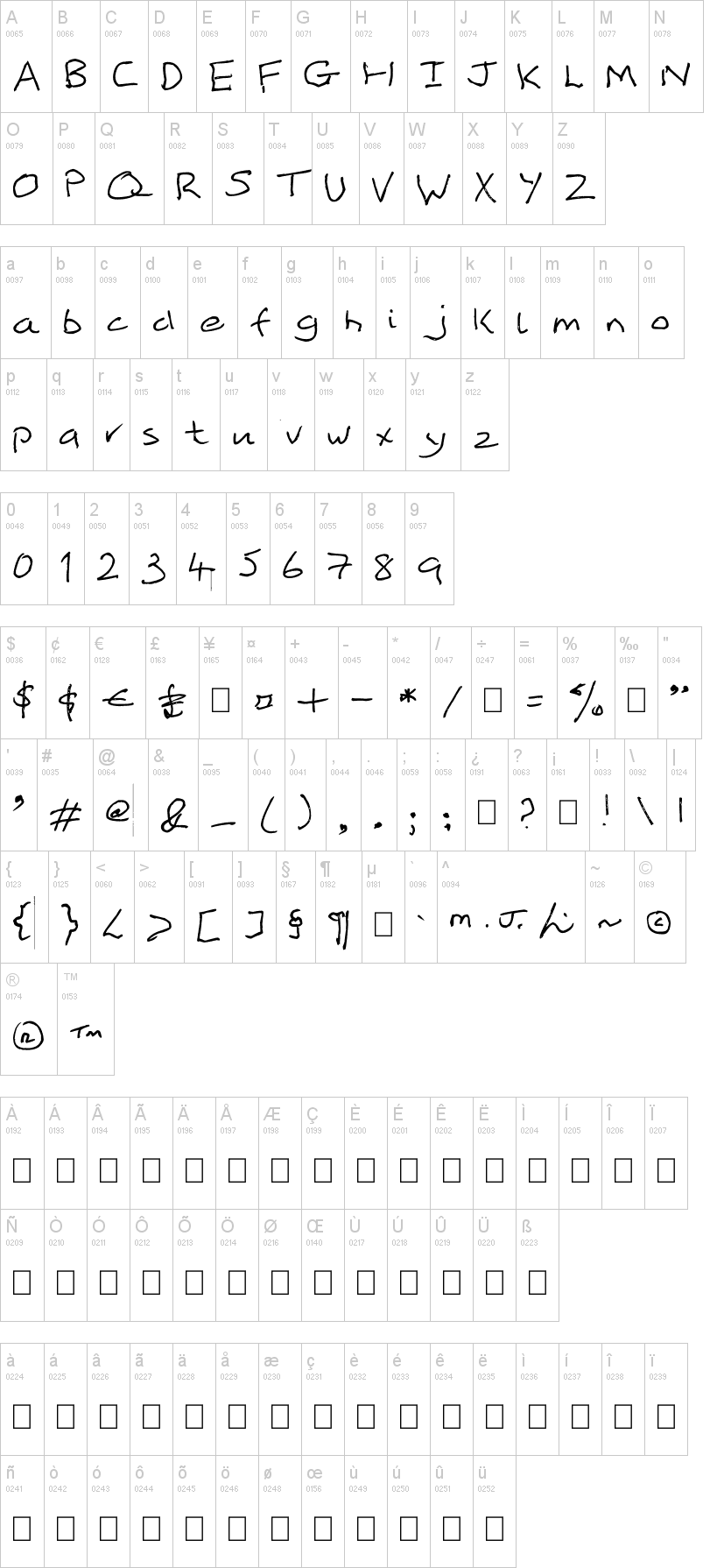
Note of the authorI studied type design for five years in Bristol, England in the 1970s. This design is based on my personal handwriting, which has become somewhat illegible over the years.